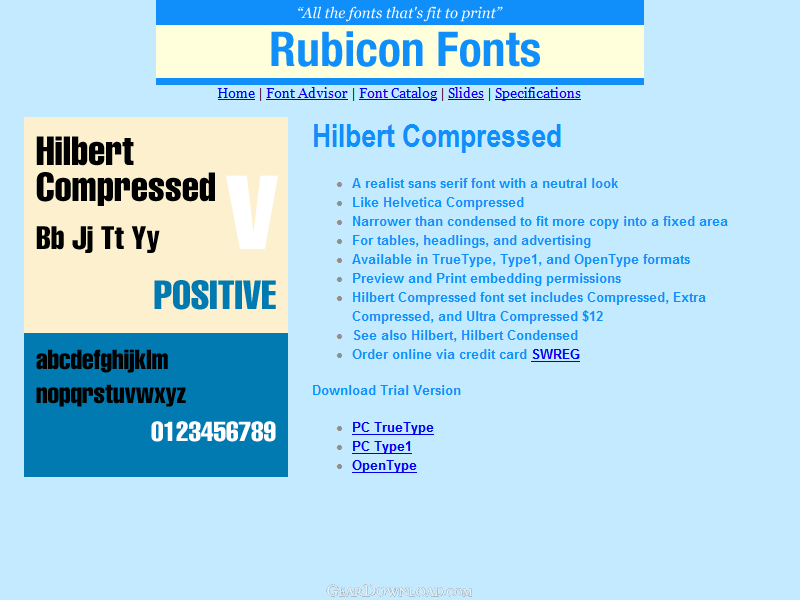
Hilbert Compressed Font Type1 - Realist sans serif font, neutral feel, like Helvetica Compressed
Realist compressed sans serif font with a neutral feel. Like Helvetica Compressed. An all purpose design, great for tables, headlines and advertising. Narrower than condensed. Accurate and hinted, matching font metrics, standard character set, kerning pairs. Professional print quality for inkjet, laser, typesetter to 3500 dpi. Purchasers receive 3 font variants as follows: Compressed, Extra Compressed, Ultra Compressed..